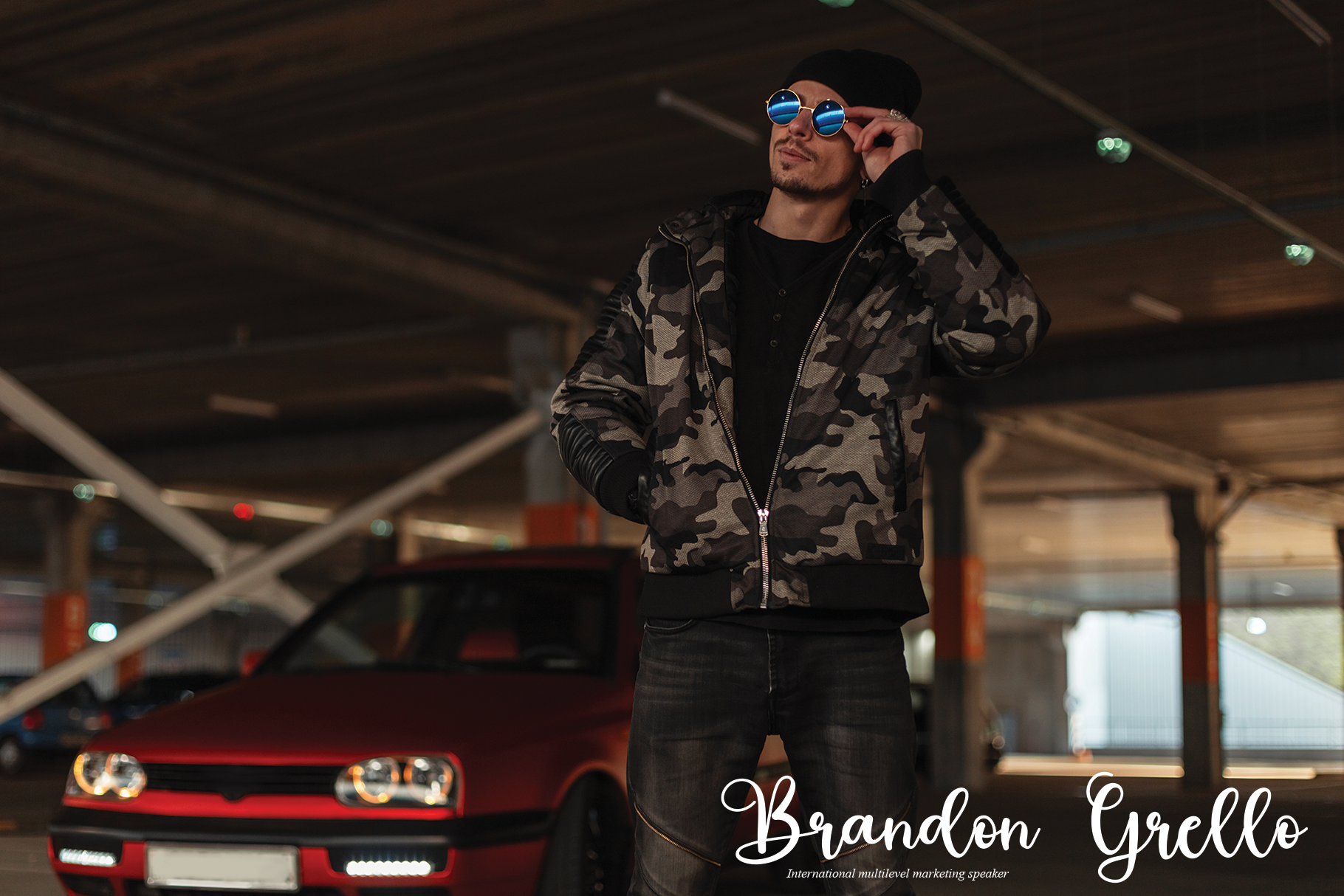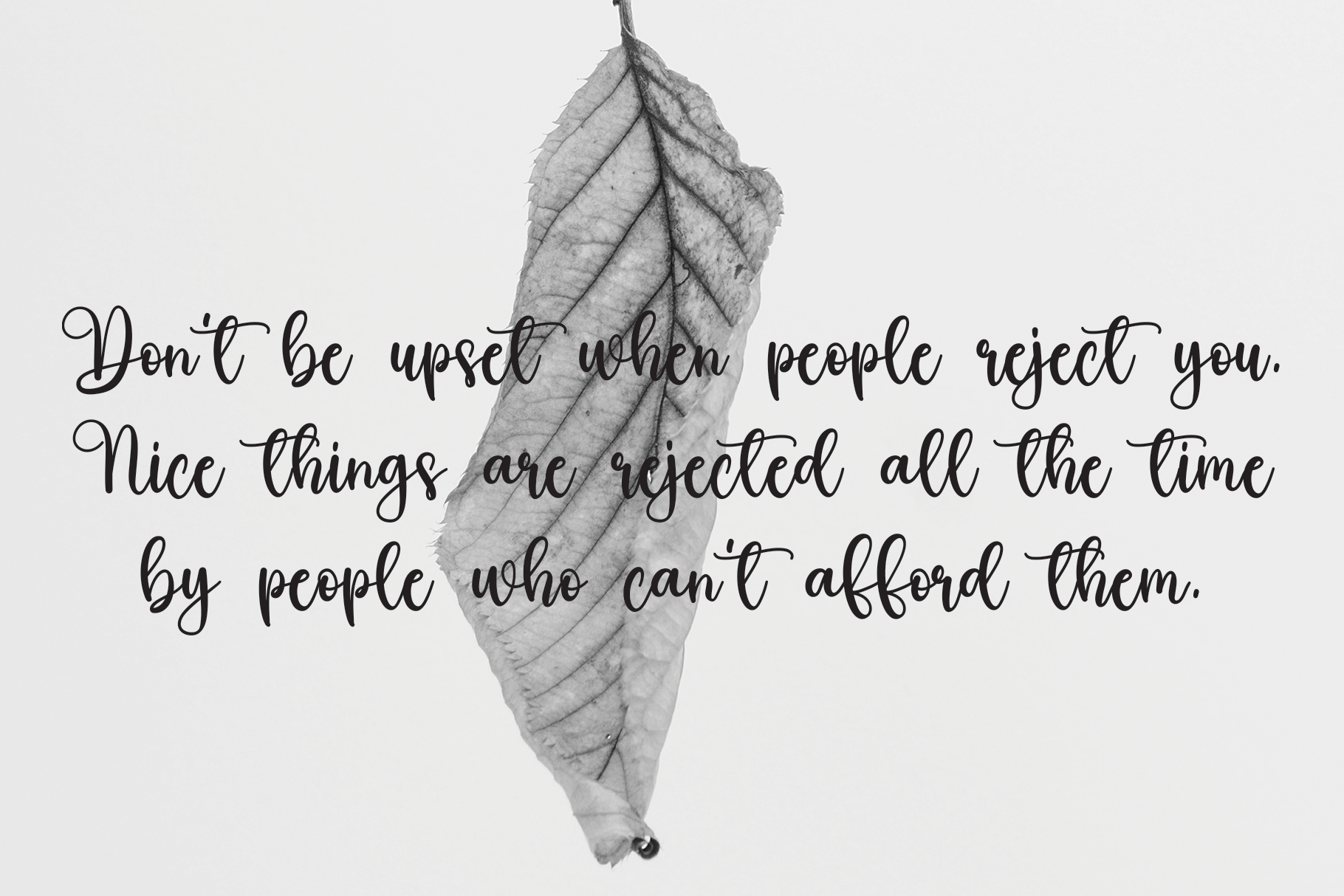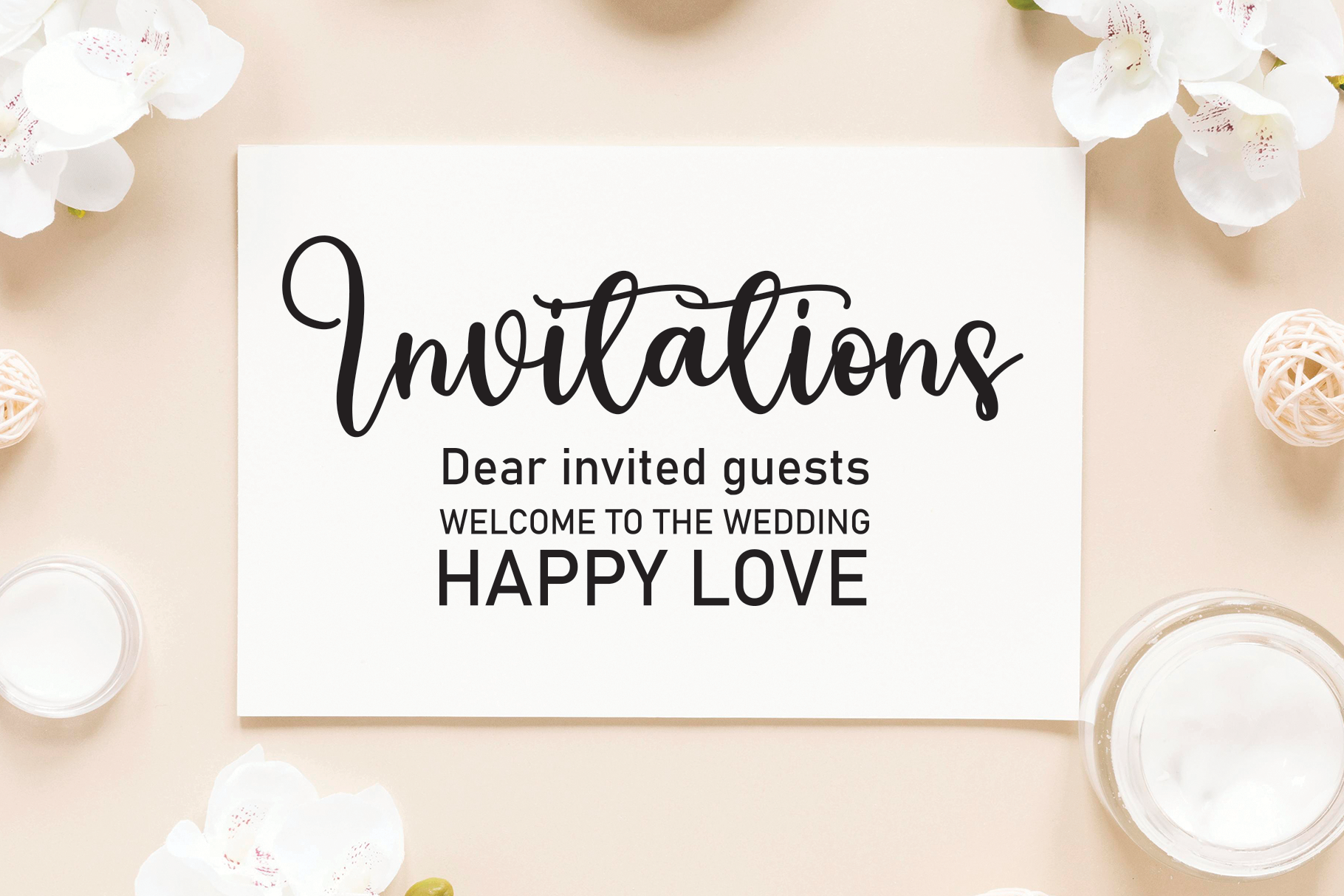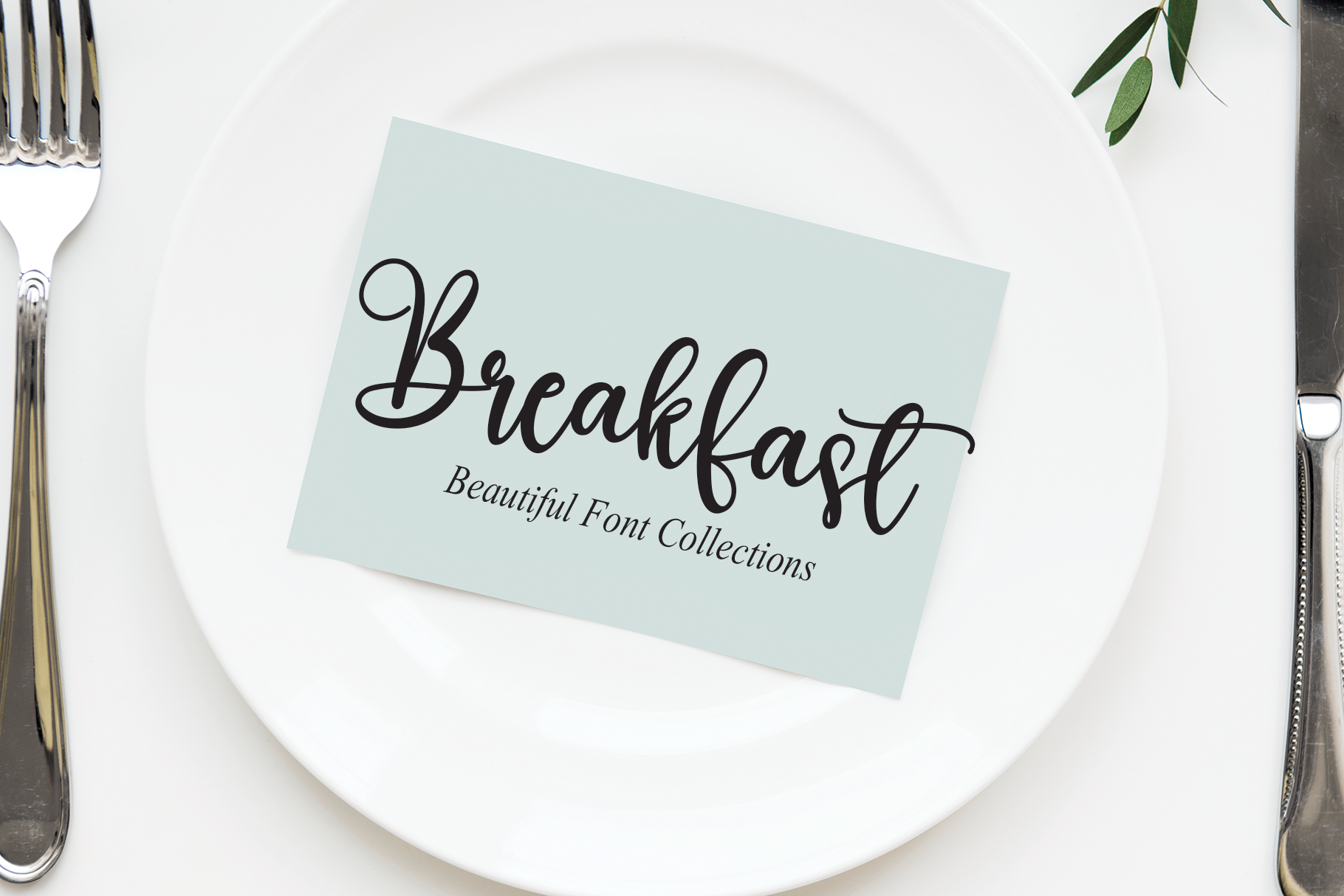
Greeting Font
Greeting Script Font
It’s a lovely and delicate script font that exudes elegance and class. This font was particularly crafted for those who need a beautiful and refreshing look to their designs.
the latest style letters are perfect for wall displays, wedding invitations, social media post logos, advertisements, product packaging, product designs, labels, photography, watermarks, invitations, stationery, and any project that requires taste handwriting.